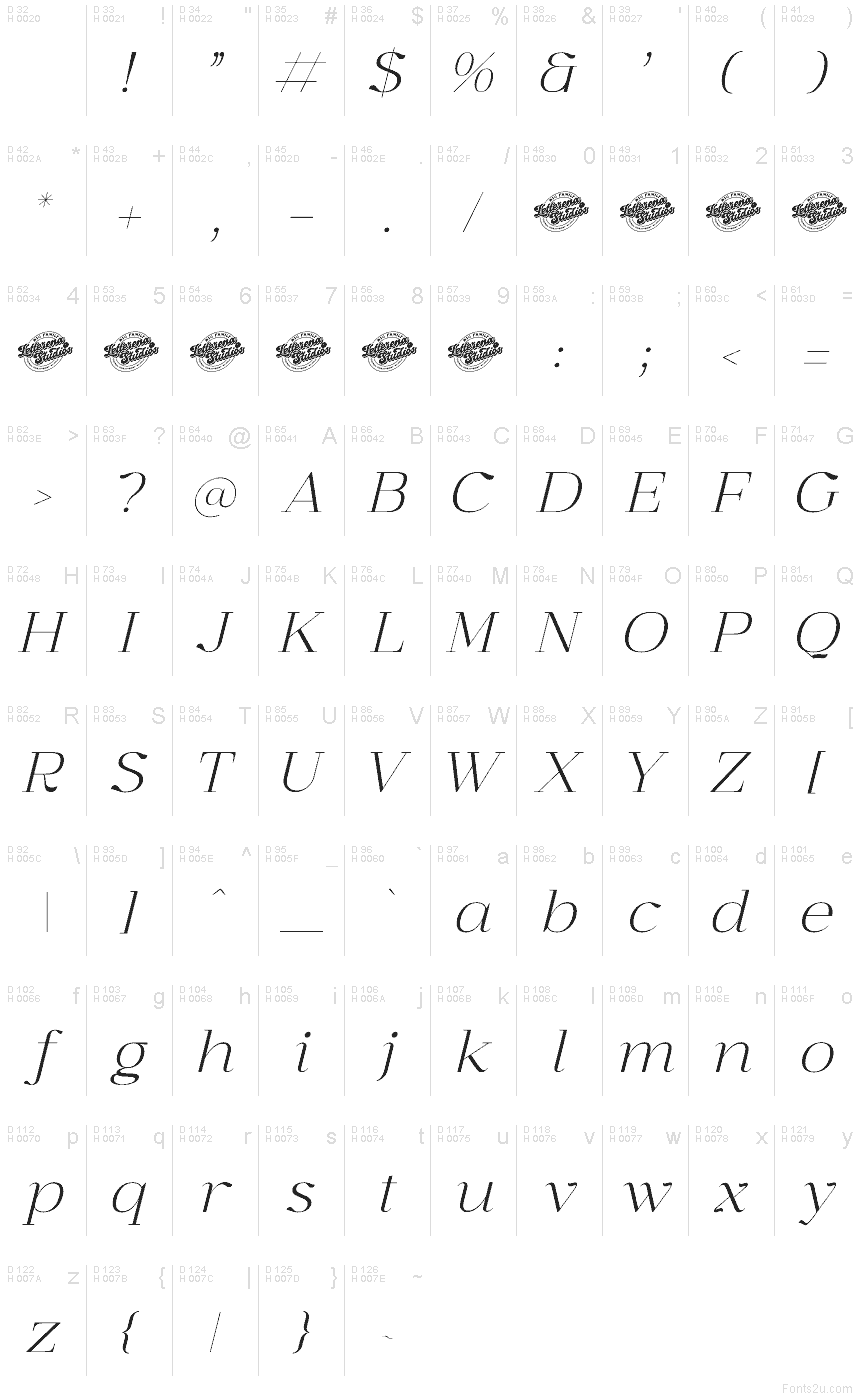
Graflows DEMO VERSION Italic
Graflows Italic font by Letterena Studios is a free high‑contrast serif display font. Built around a silky, slanted rhythm, its hairline thins glide into crisp, wedge-like terminals, giving each word a poised, aerated elegance. The italic angle feels handwritten without getting fussy, so headlines read with a graceful sweep while staying sharp and contemporary. Part of the Graflows family, it carries a refined, editorial sheen.
Using Graflows Italic, you can elevate fashion branding, magazine mastheads, boutique logos, cosmetics packaging, wedding invitations, and striking pull quotes. Its generous curves and tight modulation create drama at large sizes and a luxe shimmer in short phrases. This free font shines on social media headers too; keep body text in a quiet sans to let Graflows do the talking.